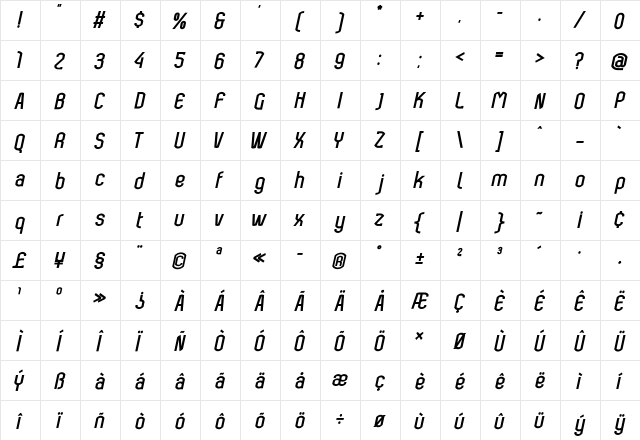
Bokeseni Bold Italic
| Foundry | Audry Kitoko Makelele |
| Designer | Audry Kitoko Makelele |
Design Context for Bokeseni Typeface
Bokeseni is a composed and adaptable typeface that performs quietly and consistently across a wide range of design contexts. The slanted form adds forward momentum and visual energy. Its bold stroke weight gives it real presence on the page.